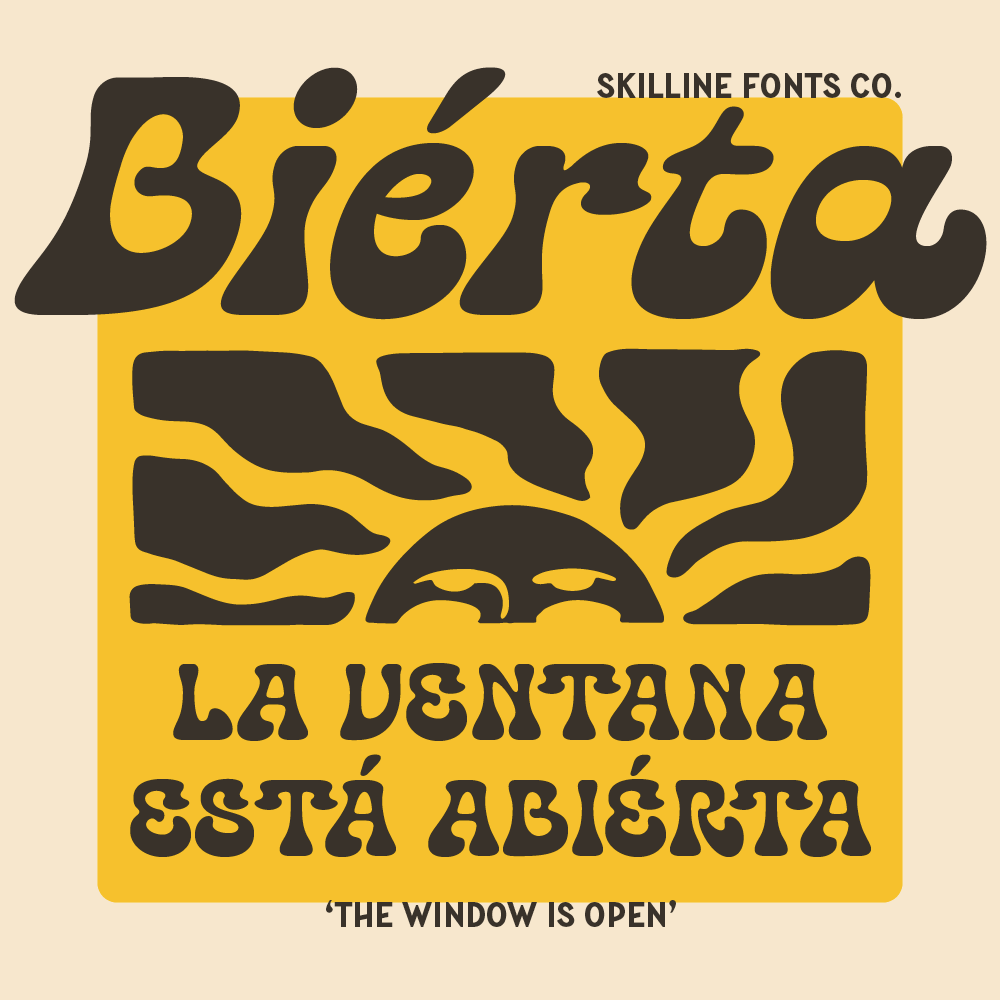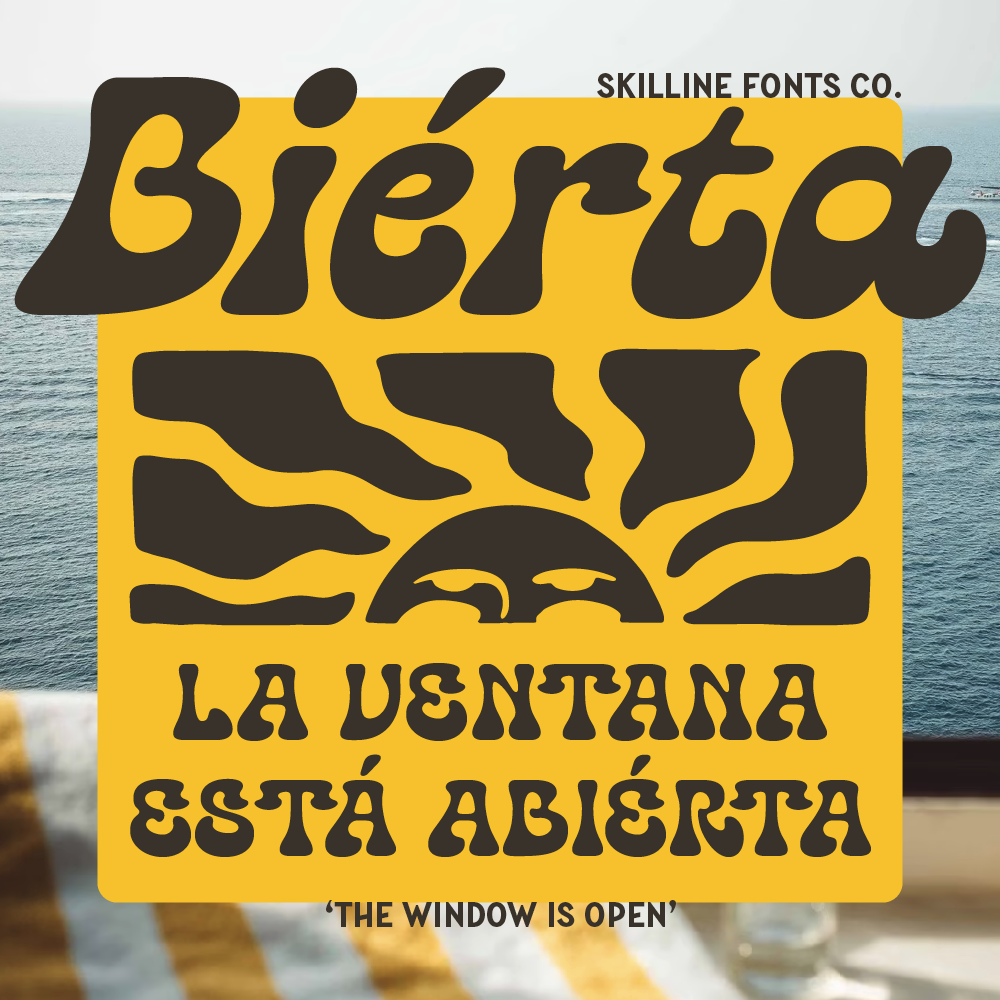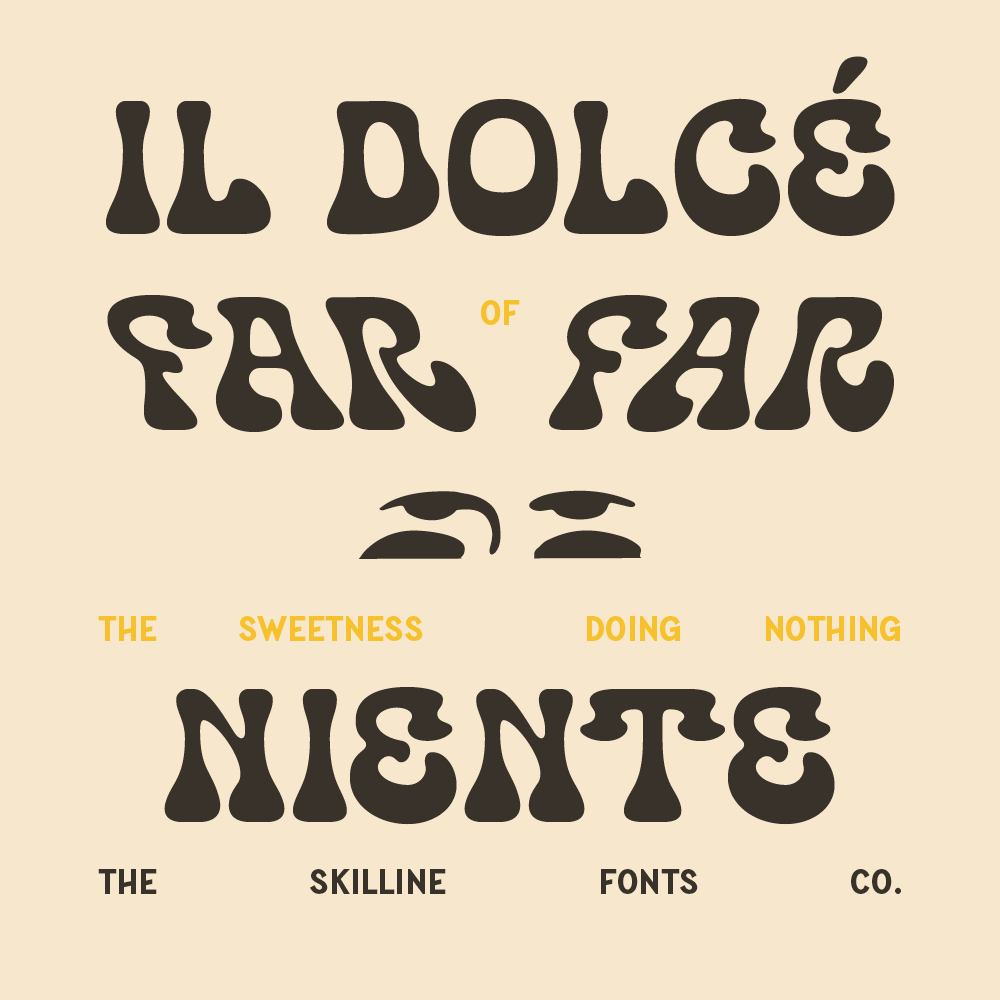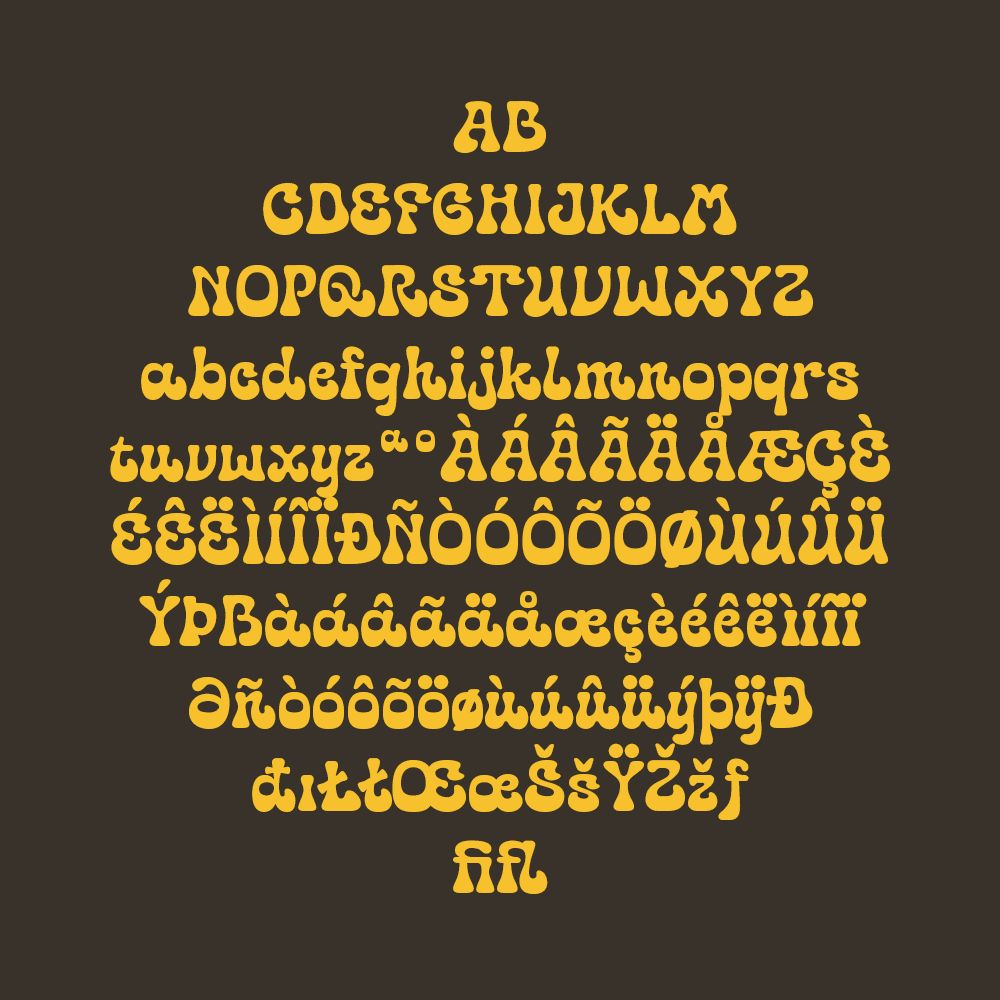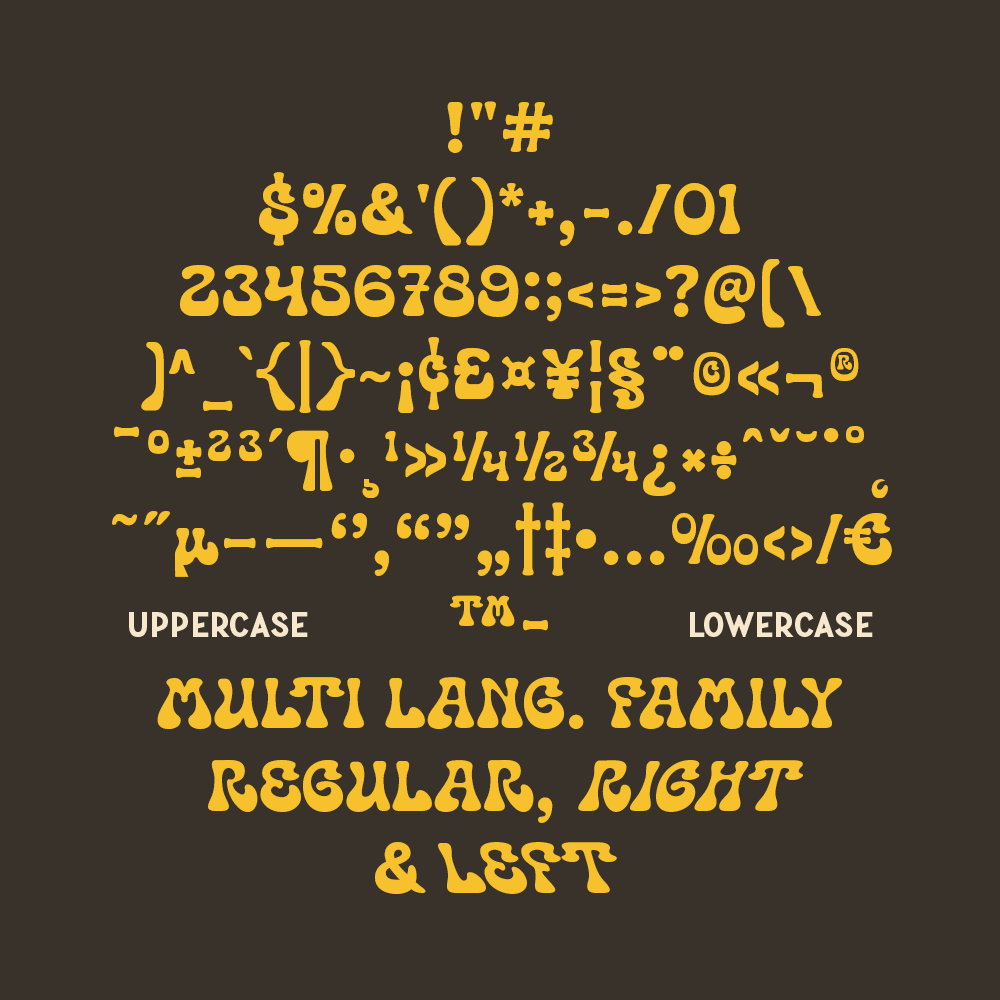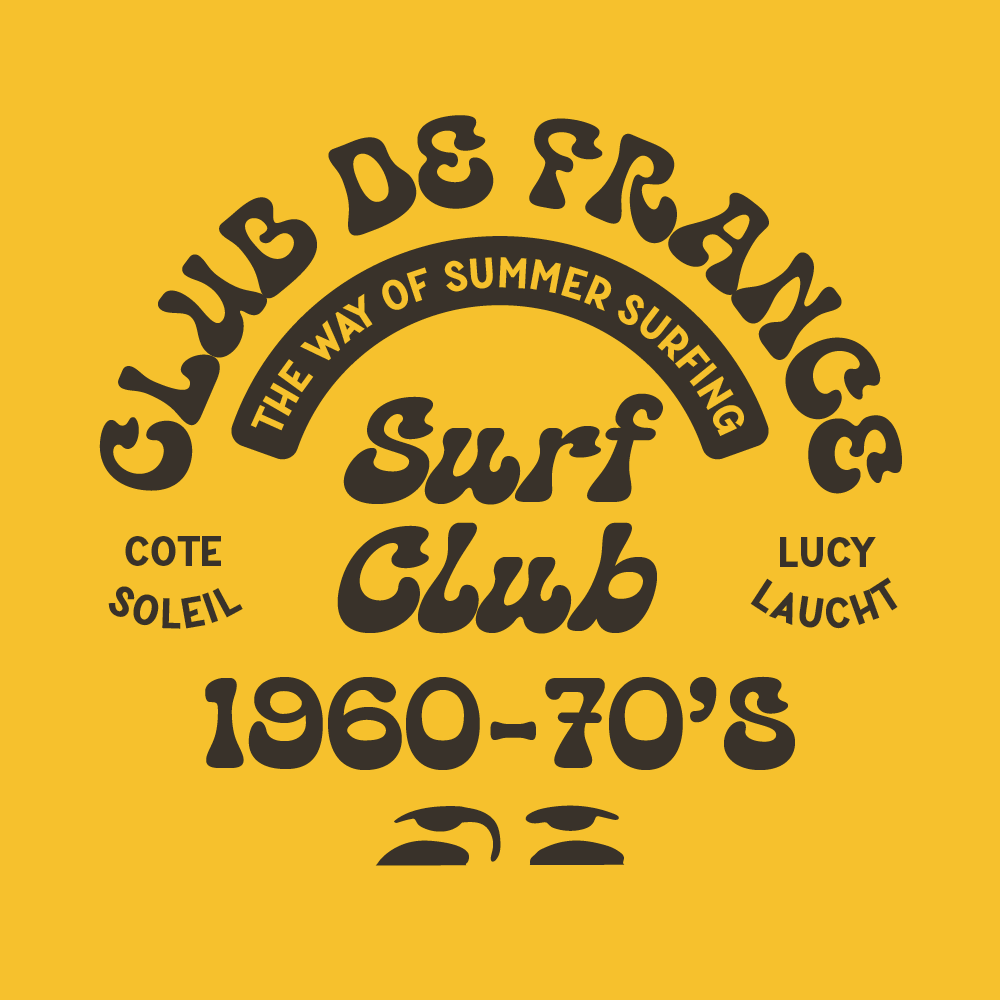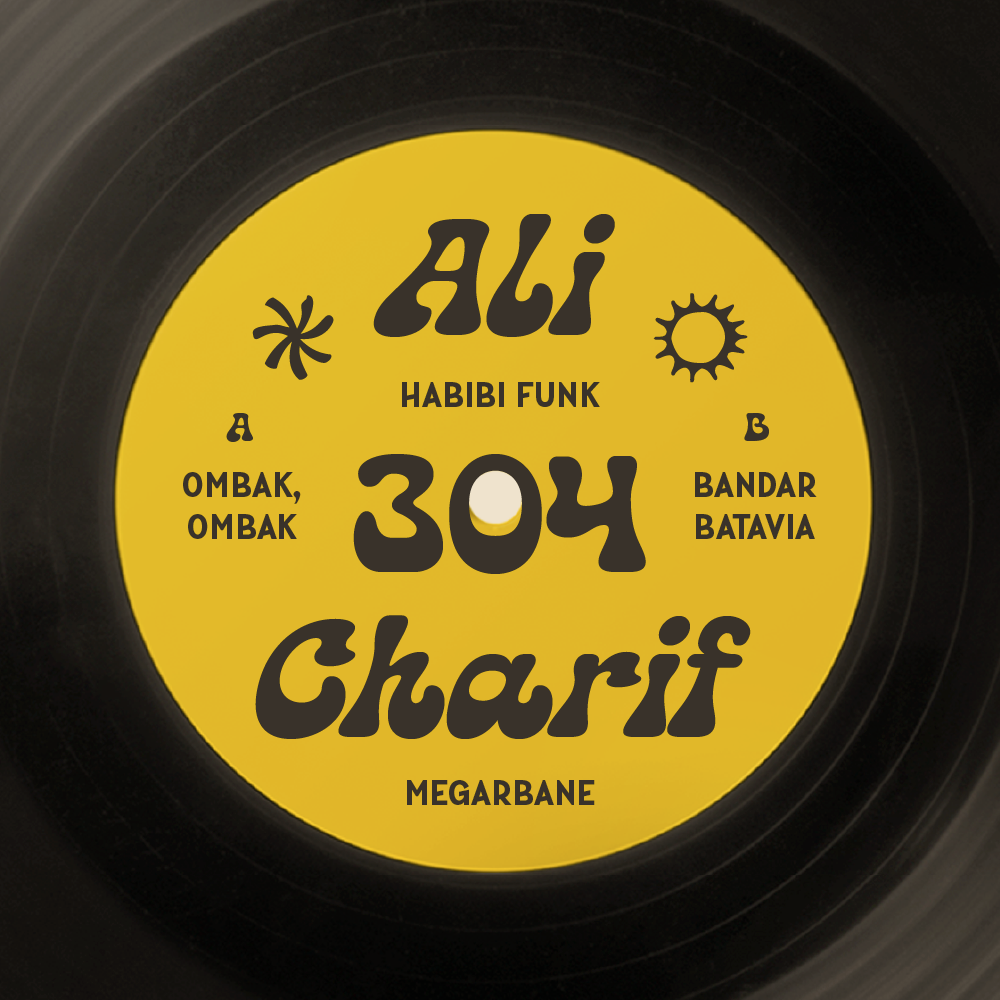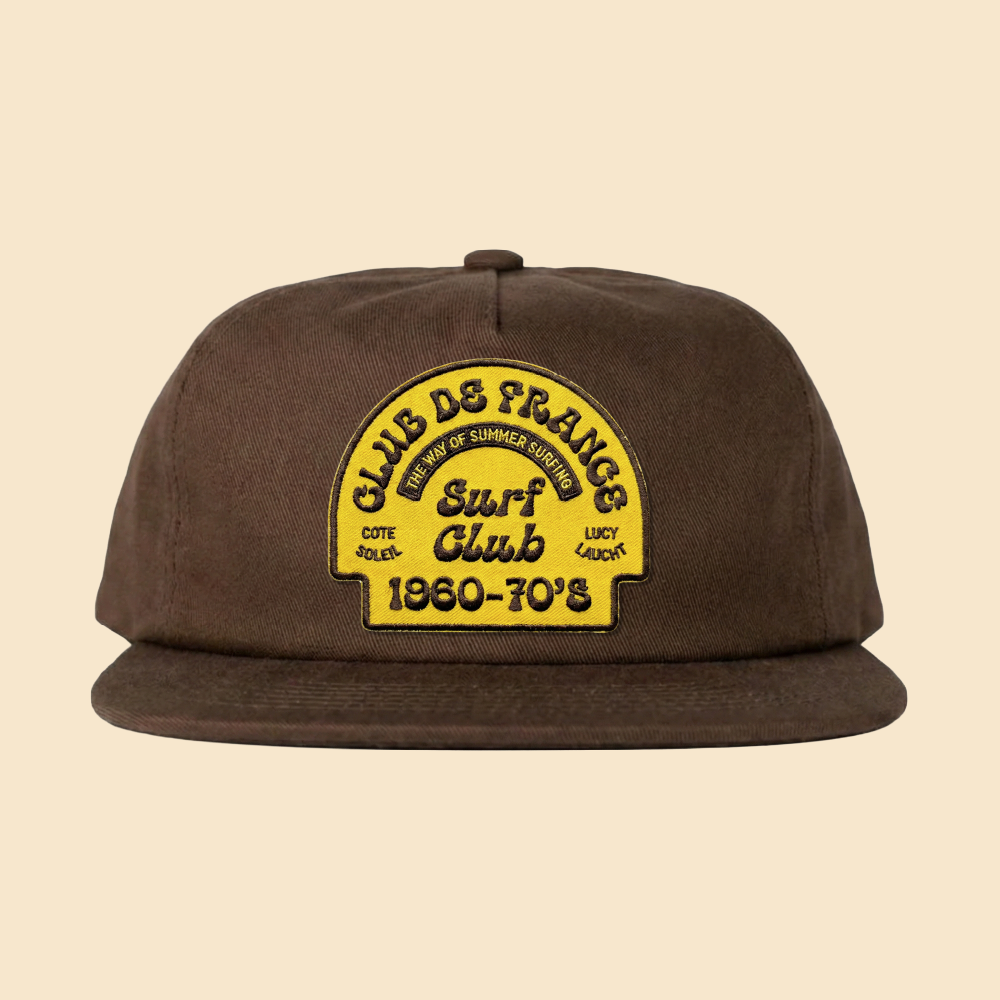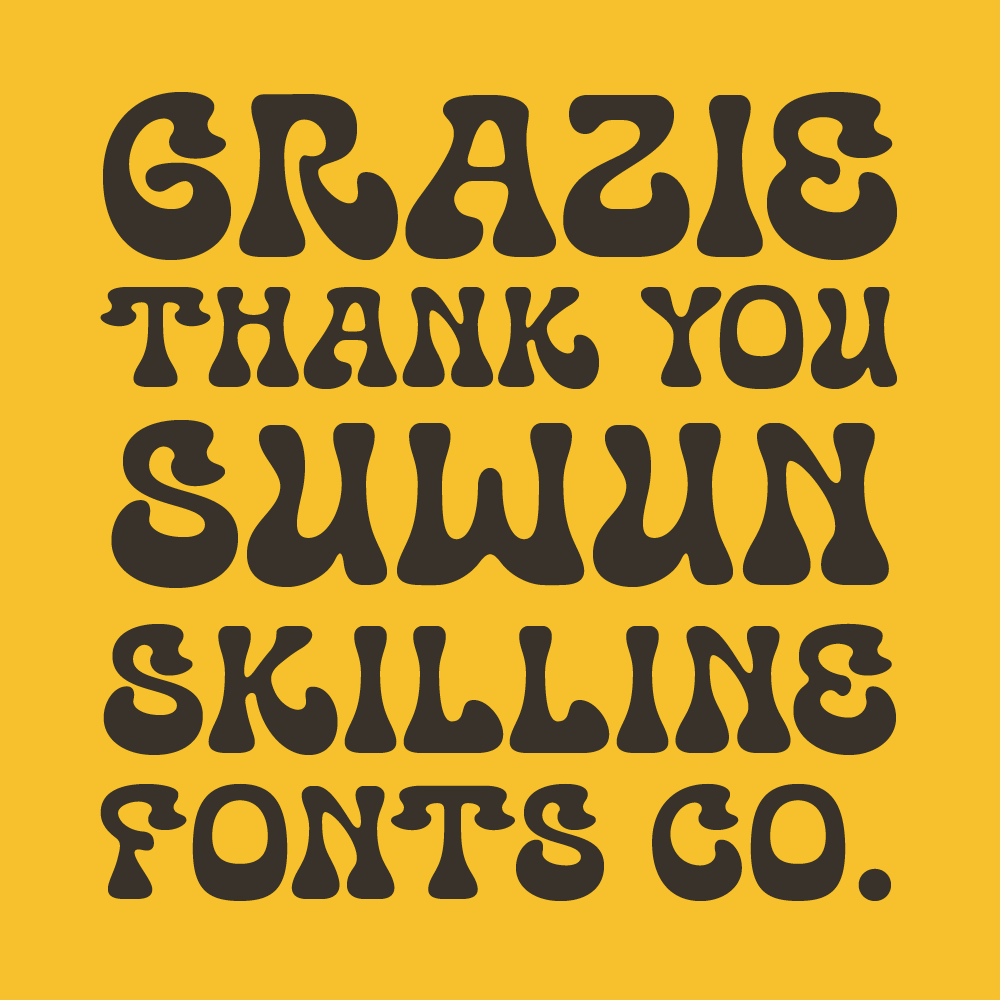
SFC Bierta is a bold retro display font inspired by 60s–70s psychedelic typography, surf culture graphics, and vintage food packaging aesthetics. Built with chunky curves, soft organic edges, and playful proportions, Bierta delivers a funky, warm, and nostalgic personality with strong visual impact.
Designed for statement-making typography, this typeface works beautifully for branding, album covers, packaging, merchandise, posters, labels, and bold editorial headlines. Its distinctive shapes create eye-catching compositions while maintaining strong readability.
SFC Bierta brings back the groove of vintage funk with a modern professional finish, perfect for designers who want character, charm, and confident presence in one typeface.
Ideal Applications for SFC Biérta Typeface
- Retro & psychedelic posters
- 60s–70s inspired branding
- Surf & summer graphics
- Food & beverage packaging
- Album covers & vinyl artwork
- Apparel & merchandise design
- Logo & badge typography
- Editorial display headlines
- Vintage label design
- Complete 3-Style Family (Left, Regular, Right)
- Full Uppercase & Lowercase Characters
- Numerals & Extended Punctuation
- Multilingual Language Support